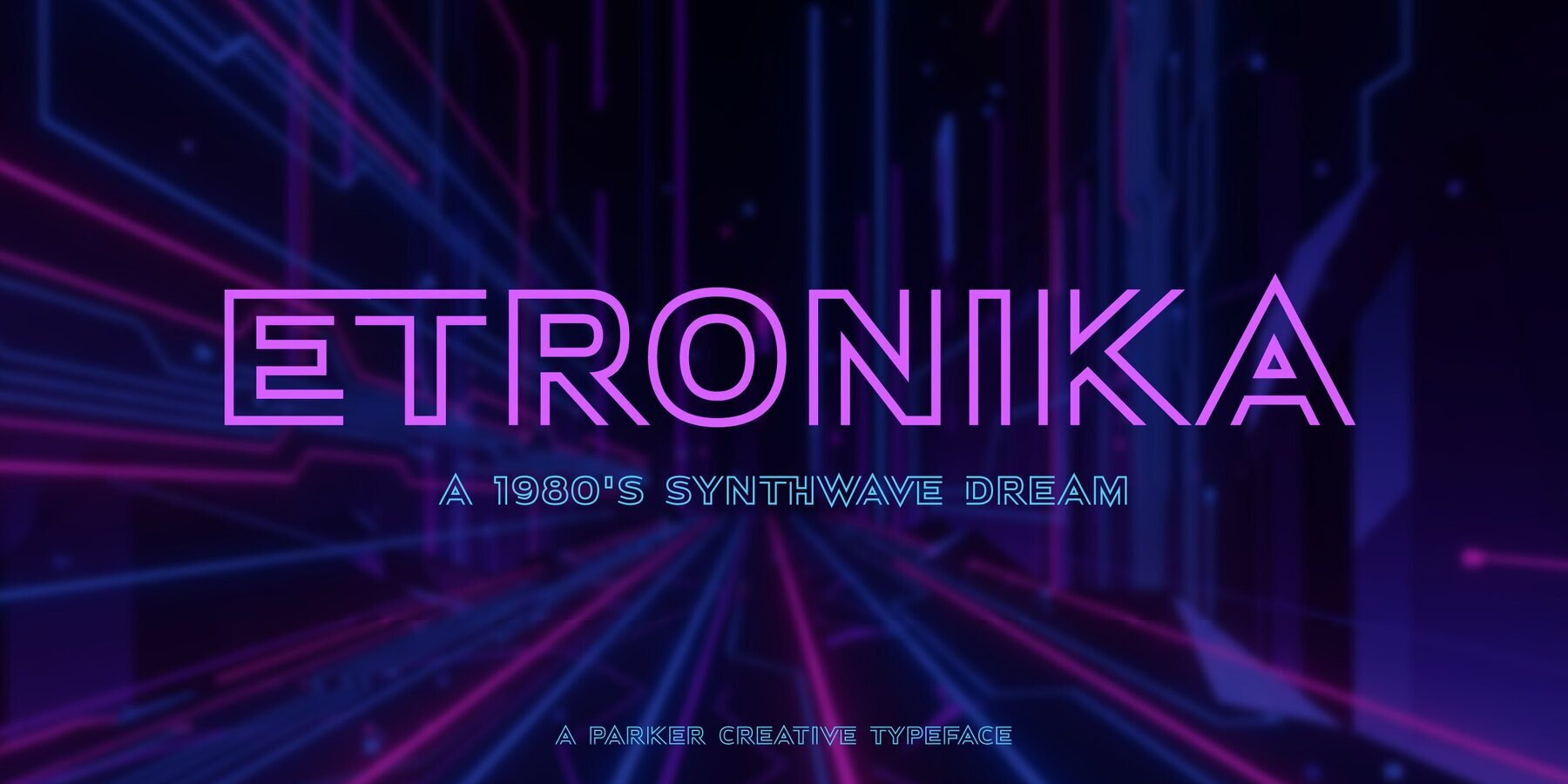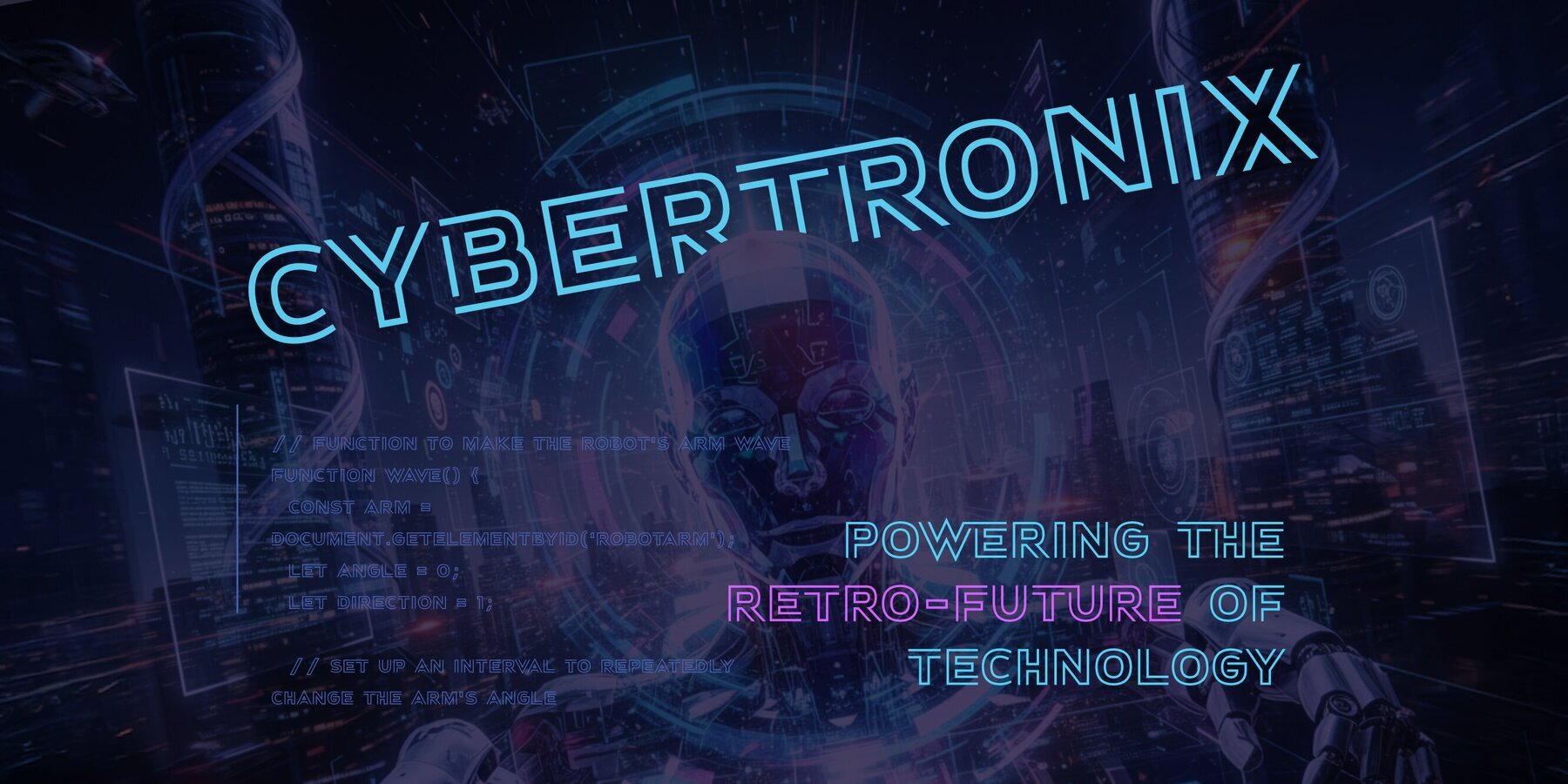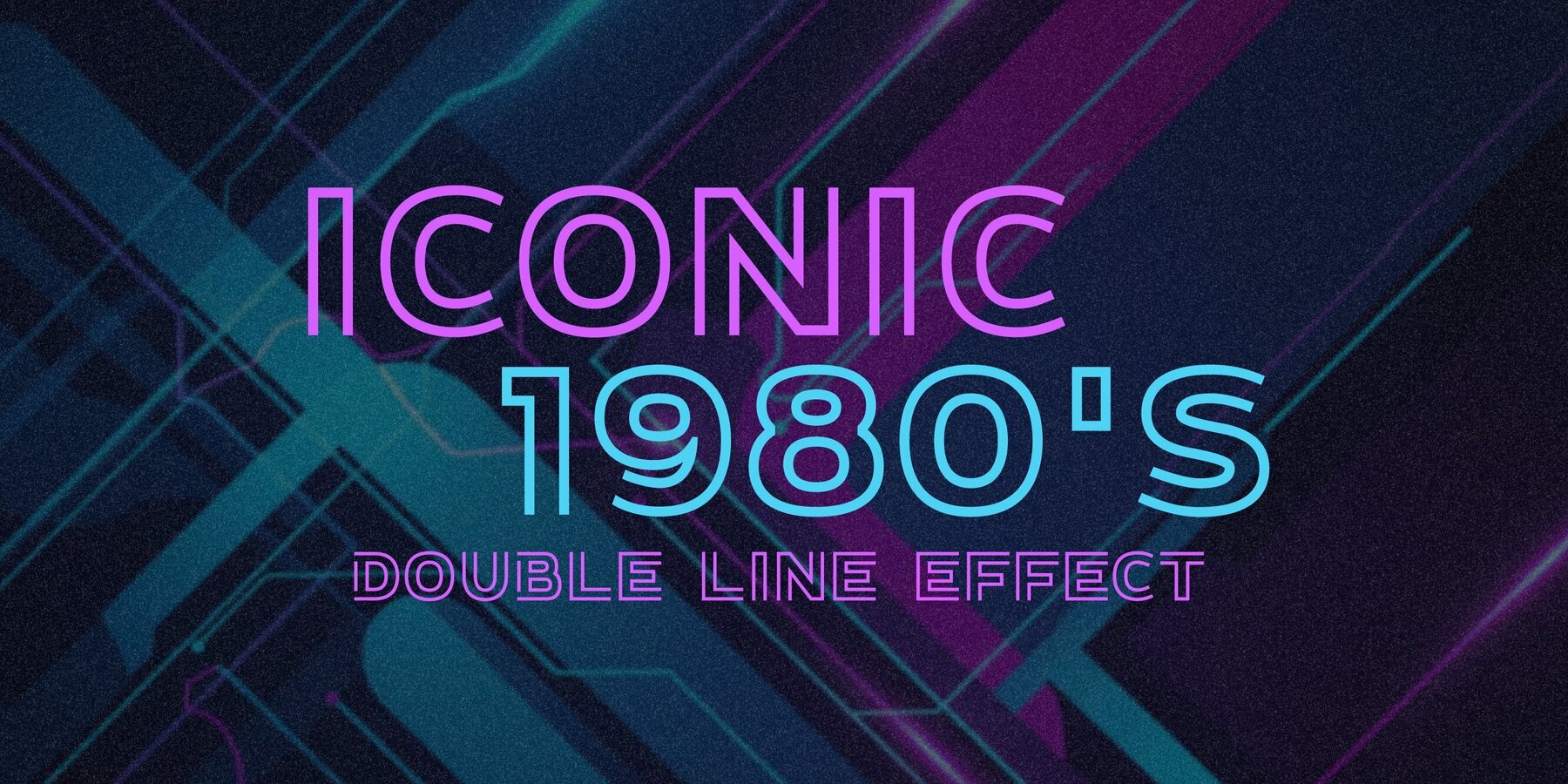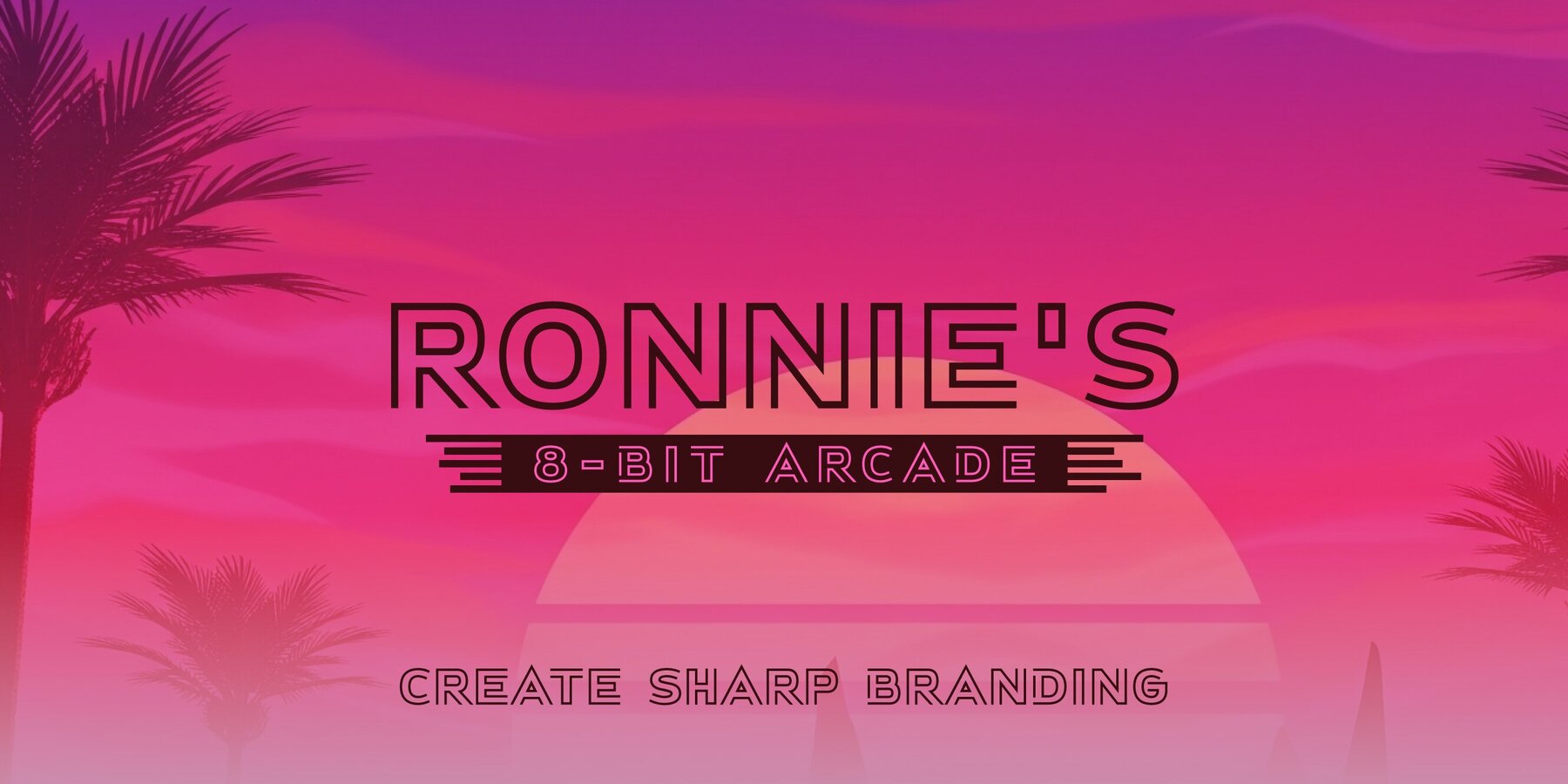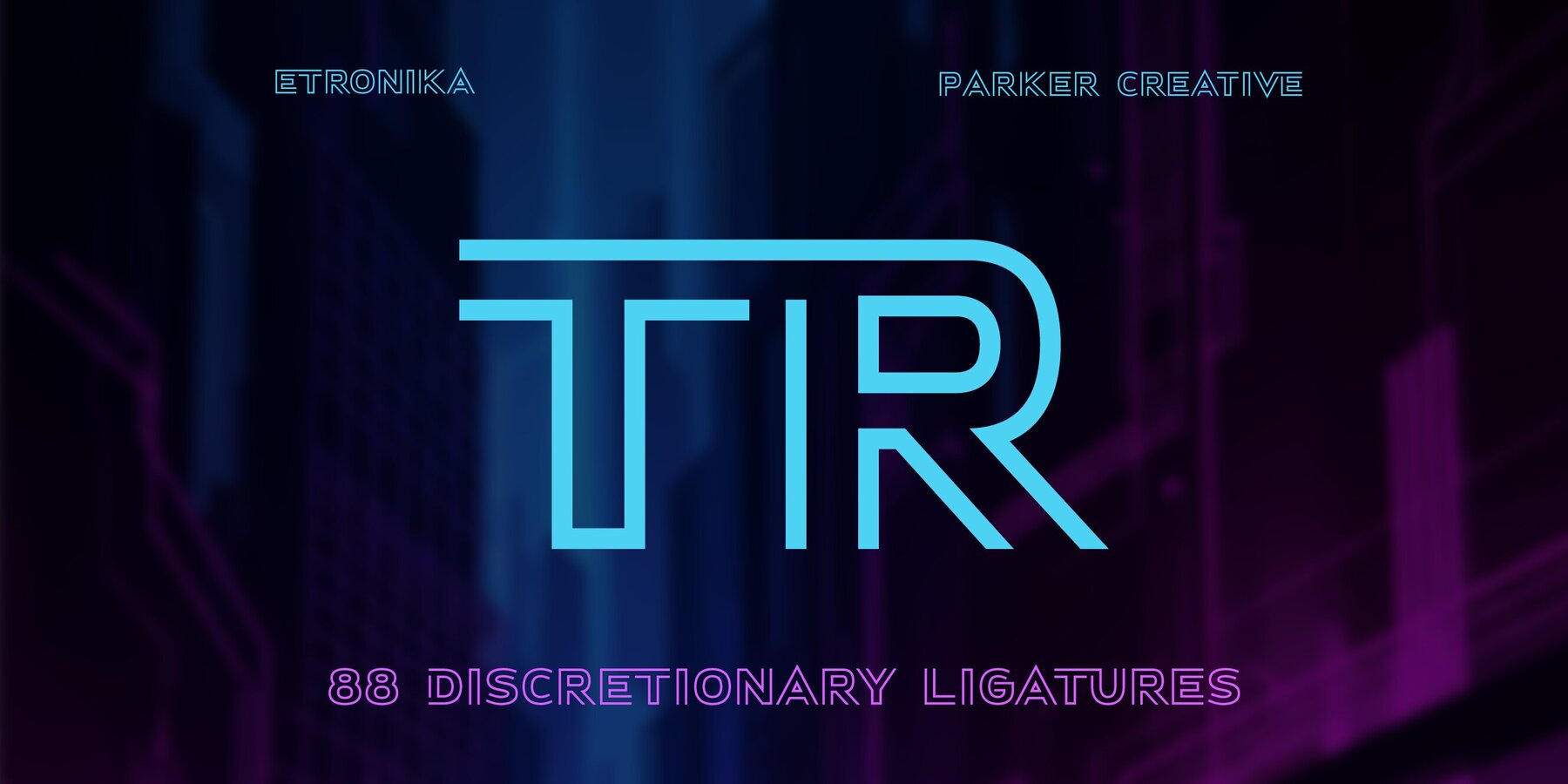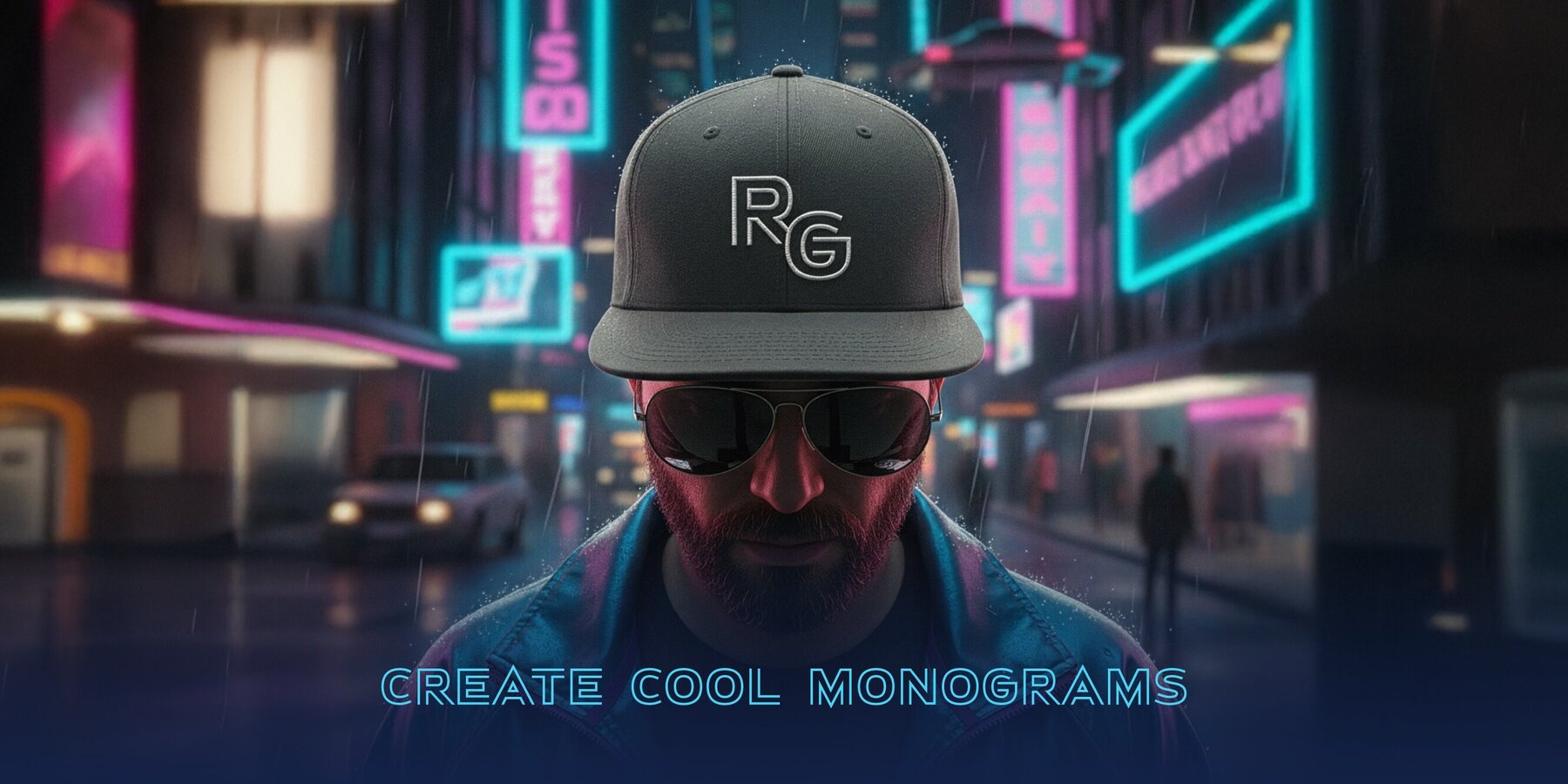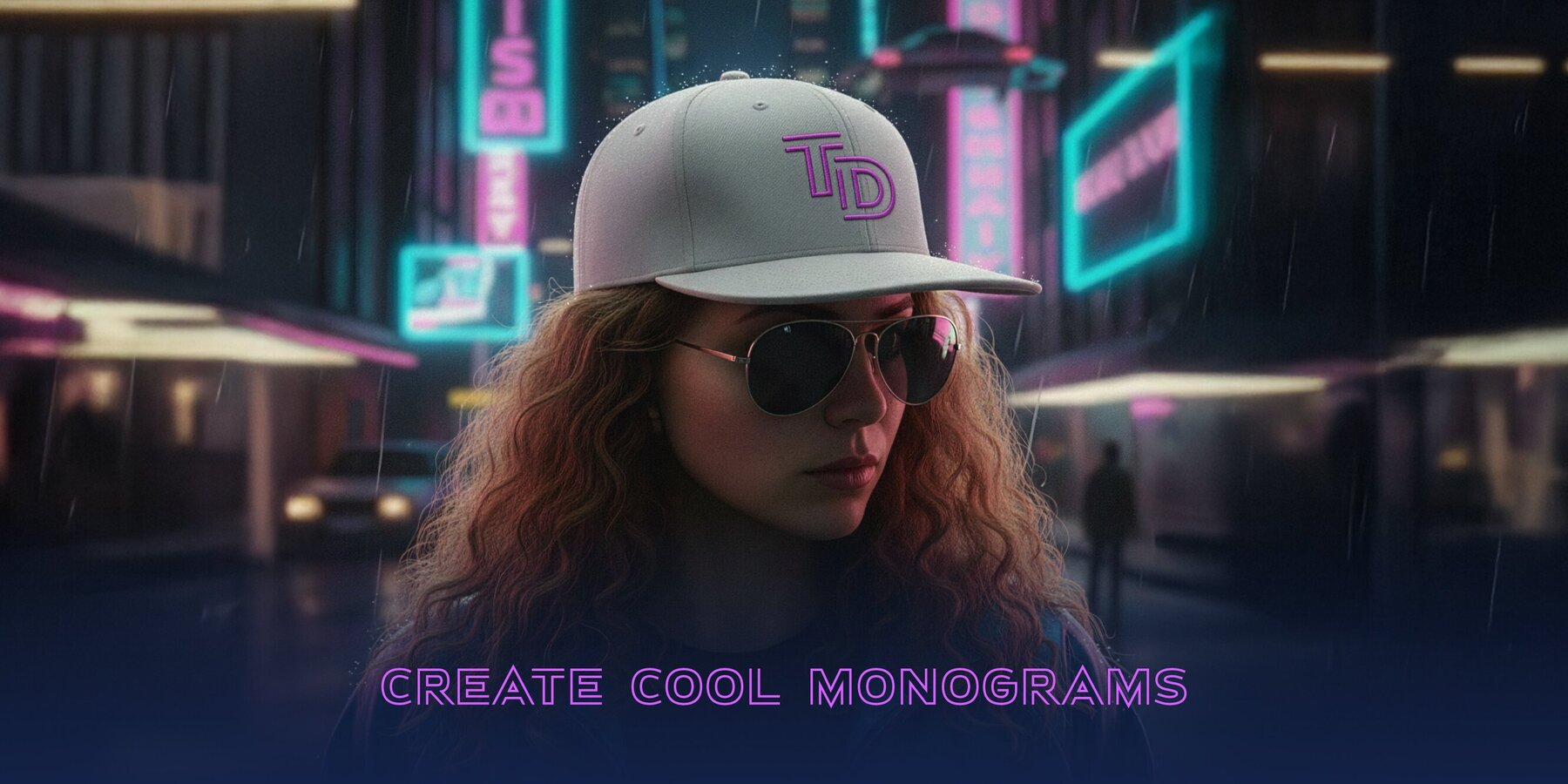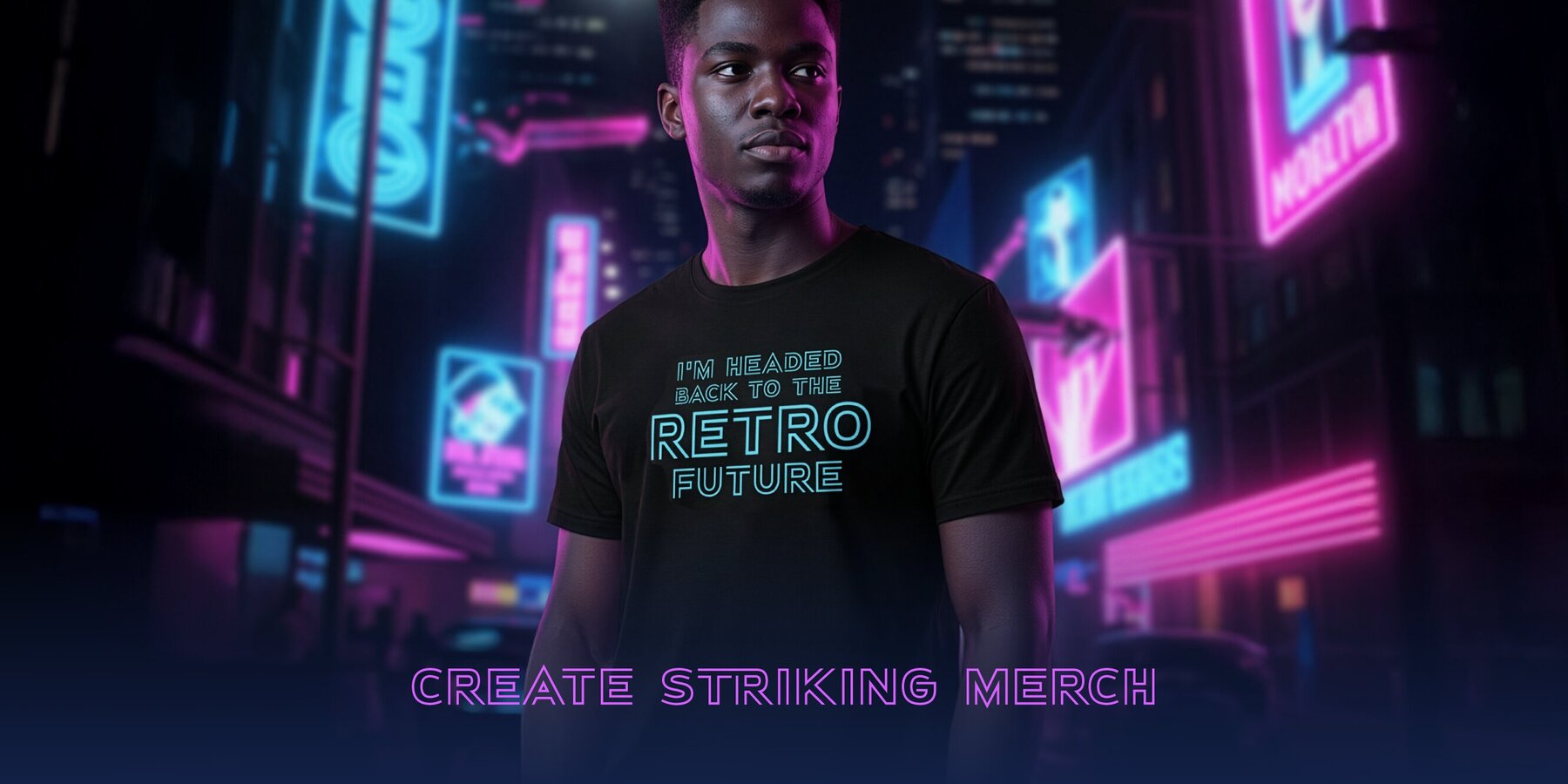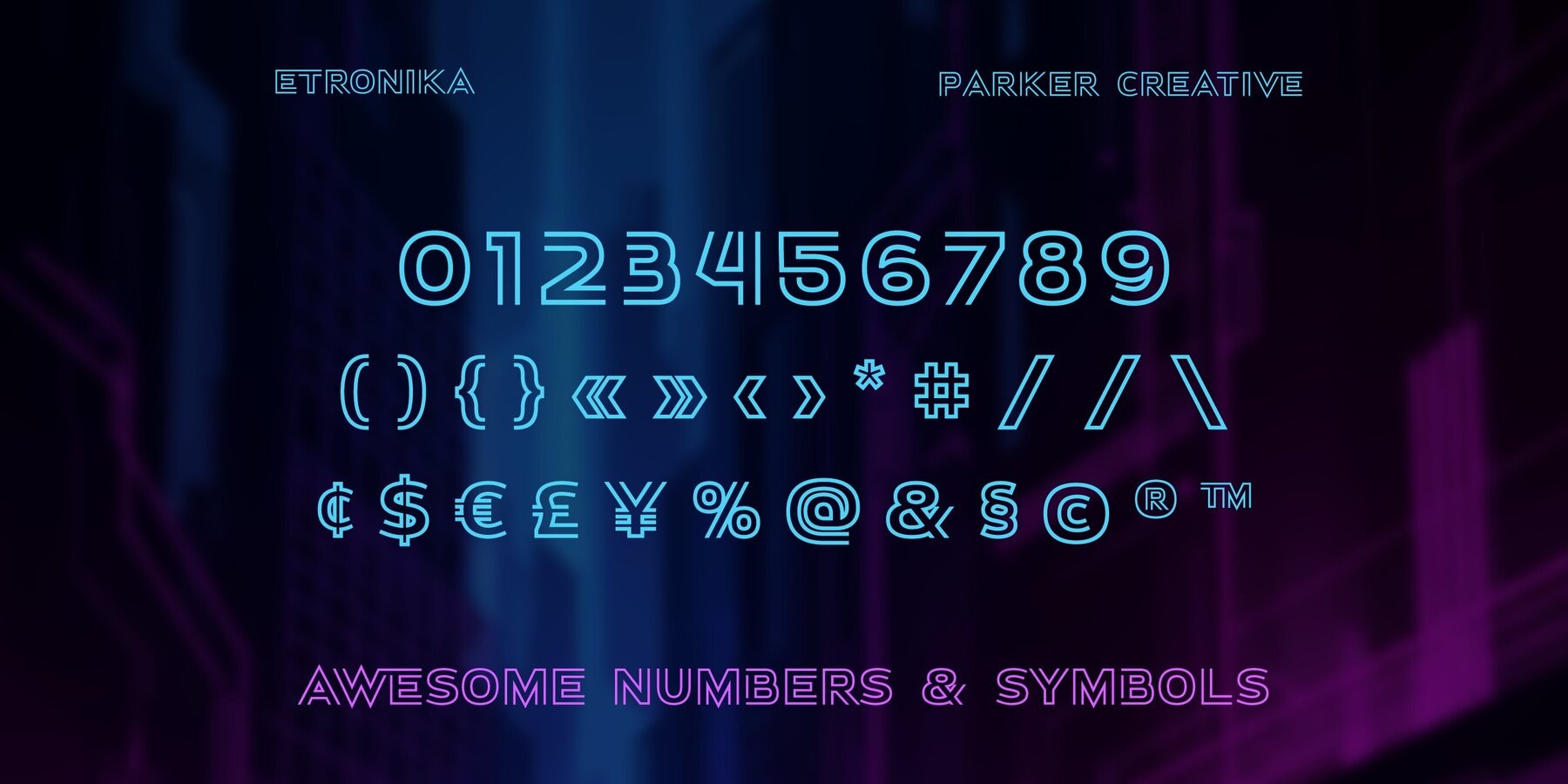
Etronika Font
Etronika Regular
The synthwave font dream is here! Etronika is the ultimate 1980s font built for creating striking merch and sharp branding. Designed by Parker Creative, this display sans serif embodies the iconic aesthetics of the 80s, perfect for projects that demand a nostalgic, electric vibe at the very beginning of the digital age. The standout double line font effect makes your text pop with an authentic 80s look. It’s perfect for capturing a synthwave or vaporwave font feel and is ideal for projects that need a classic look or need to bring in a retro element to a modern design. Etronika is also packed with 88 discretionary ligatures, enabling you to create even more unique lettermarks and graphics. These ligatures artfully unite various letter combinations together through connected lines. Whether you're designing for cyberpunk font visuals, a vintage poster, or modern tech, Etronika has the versatility to shine. It works beautifully as an 80s display font for headers, titles, and a wide variety of merchandise